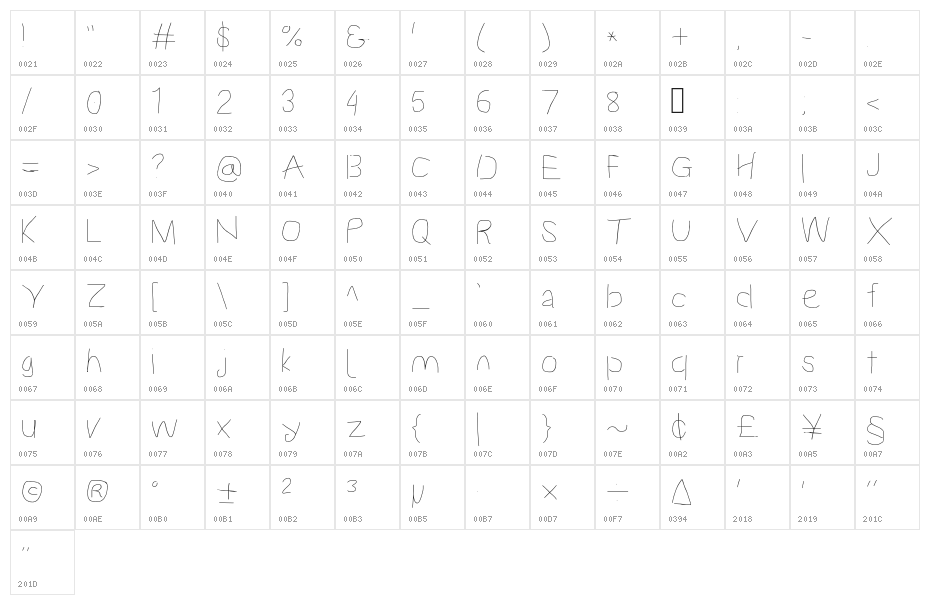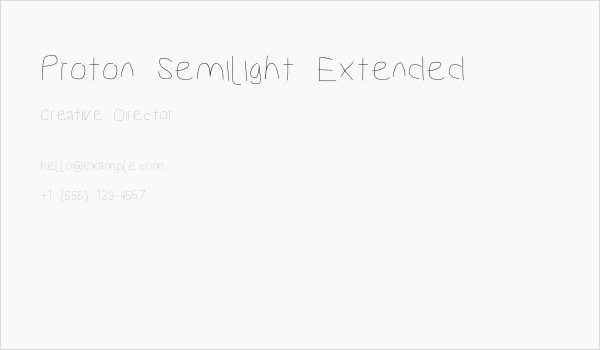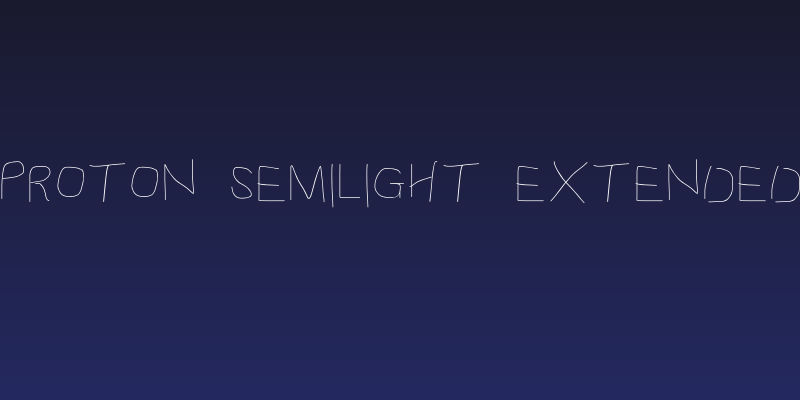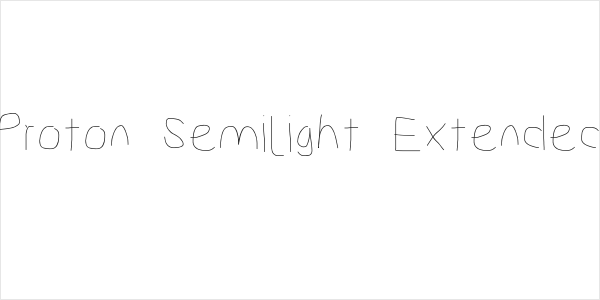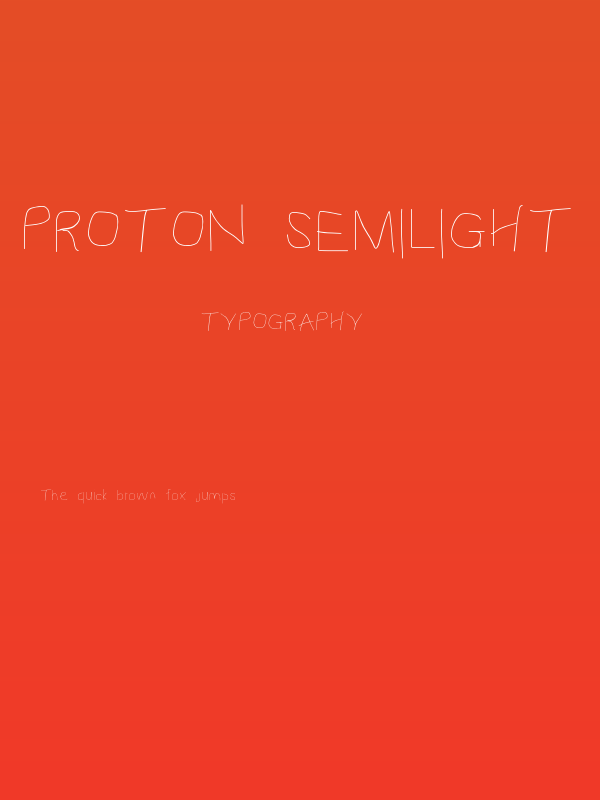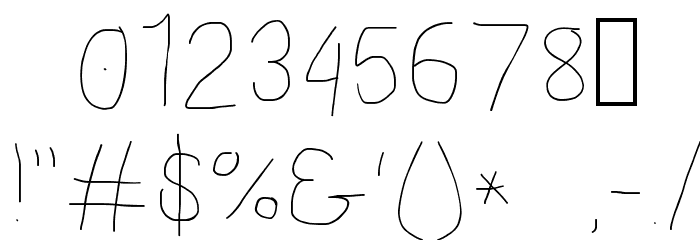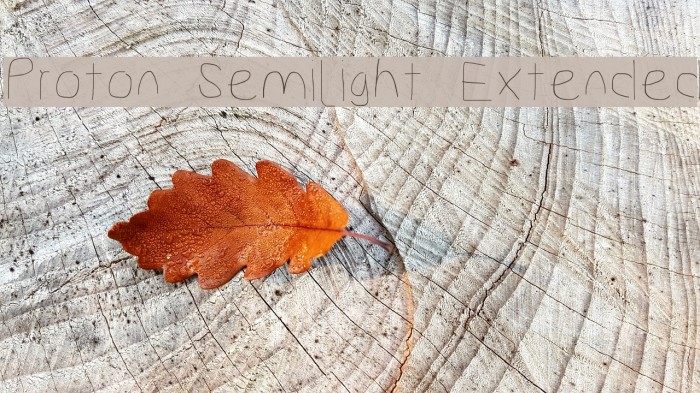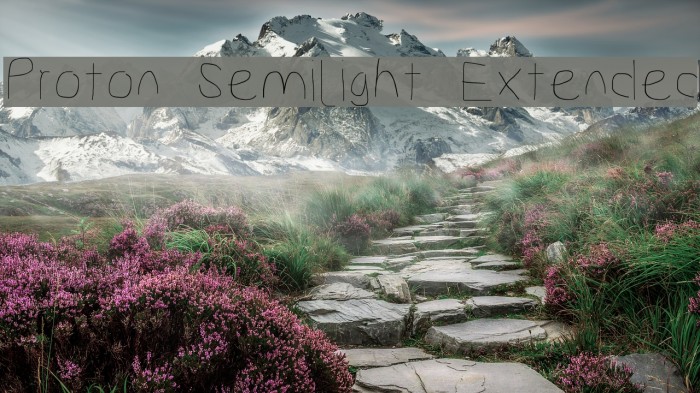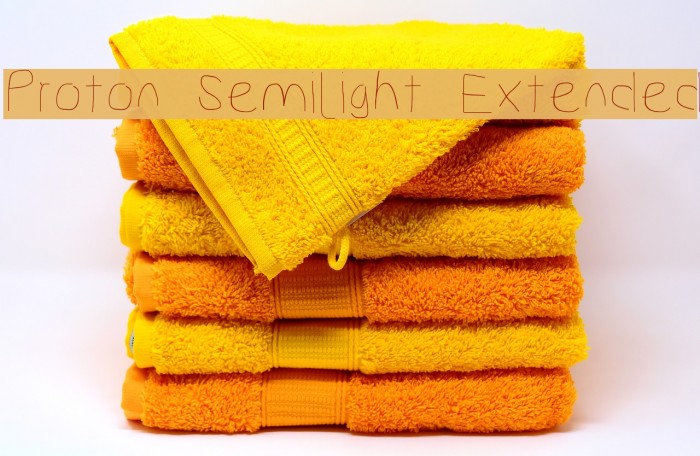
Proton Semilight Extended Font
Proton Semilight Extended Description
This font features a modern, handwritten style with a playful and casual appearance. The letters are elongated and slightly irregular, giving it a unique and informal look. The strokes are thin and consistent, with a slight variation that adds character without compromising readability. The overall design is clean and minimalistic, making it suitable for a variety of creative projects. The numerals and special characters maintain the same whimsical style, ensuring a cohesive appearance across all text elements.
| Use Case | Logos, Headlines, Informal Invitations |
| Proposed Projects | Ideal for greeting cards, personal blogs, creative branding, and children's book illustrations. |